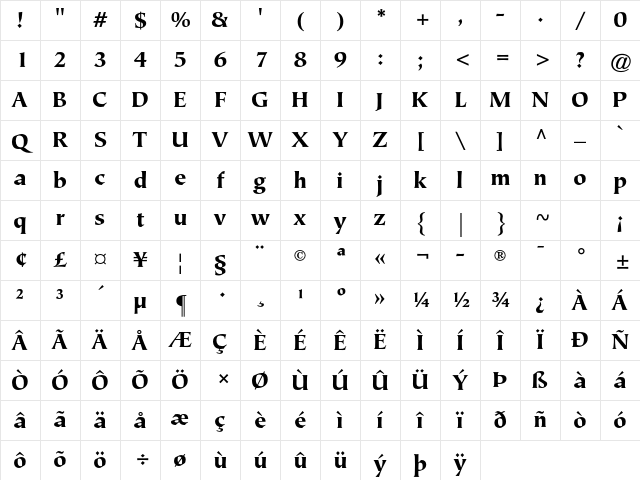
Complete ITC Tiepolo Std Black glyph index. Displaying only characters natively supported by ITC Tiepolo Std Black font.
ITC Tiepolo Std is a composed and adaptable typeface that performs quietly and consistently across a wide range of design contexts.